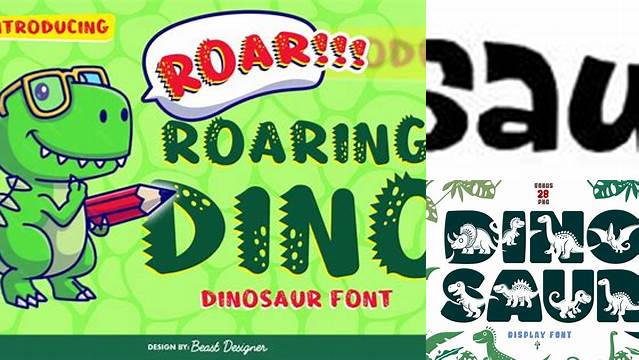
Dinosaur Cake Font: Free Download For Roaring Designs
Hey there, design enthusiasts! Are you looking to add some prehistoric pizzazz to your cake designs? Or perhaps you're working on a dinosaur-themed birthday party invitation? Well, you've come to the right place! We're diving deep into the world of dinosaur cake fonts, offering you a treasure trove of free downloads to make your creations roar! Whether you're a professional baker or a DIY enthusiast, having the right font can make all the difference.
Dinosaur Cake Fonts: An Introduction
Before we get started, let’s understand what dinosaur cake fonts are all about. These fonts are designed to evoke the spirit of the Jurassic era, often featuring rugged, textured, or playful designs that complement dinosaur-themed projects. They're perfect for cakes, posters, banners, and anything else that needs a touch of prehistoric charm. So, buckle up, and let’s explore the best options available for dinosaur cake font free download!
1. Free Dinosaur Fonts for Cake Decorations
When it comes to cake decorations, the font you choose can either make or break the design. Using a dinosaur cake font free download that complements the overall theme is crucial. Look for fonts with a playful, slightly rough texture to give your cake a realistic, Jurassic feel. Imagine a birthday cake with the name "Ethan" written in a bold, textured dinosaur font – it’s sure to be a hit!
Paragraph Optimization: For the best results, consider using a font that's easy to read from a distance. This ensures that the message is clear and captivating. Remember, the goal is to create a visually appealing and memorable cake. So, choose wisely!
2. Best Dinosaur Fonts for Birthday Cakes
Birthday cakes, especially for kids, are all about fun and excitement. When selecting a dinosaur cake font free download for a birthday cake, go for something that’s both playful and legible. Fonts with rounded edges or cartoonish elements can add a touch of whimsy, making the cake even more appealing. Think about using bright colors to further enhance the visual impact.
Paragraph Optimization: A great tip is to preview the font with the birthday celebrant's name before finalizing your design. This way, you can ensure that the font looks good with the specific letters and length of the name. Plus, it adds a personal touch!
3. Dinosaur-Themed Fonts: Free Options
Finding the right dinosaur-themed font free download can be a daunting task, but there are plenty of fantastic options available online. Websites like Dafont, FontSpace, and Google Fonts offer a wide variety of fonts that fit the dinosaur theme. Look for fonts with names like "Jurassic Park," "Dino," or "Prehistoric" to get started. These fonts often come with unique characteristics that perfectly capture the essence of the dinosaur era.
5. Typography Ideas for Dinosaur Cakes
Let’s talk typography ideas! Choosing the right font is only half the battle; how you use it is equally important. Consider these tips:
- Color: Use colors that complement the dinosaur theme, such as greens, browns, and earthy tones.
- Size: Adjust the font size to fit the cake perfectly. Too small, and it might be hard to read; too large, and it could overwhelm the design.
- Placement: Think about where the text will be placed on the cake. Centering it can create a balanced look, while placing it off to the side can add a touch of whimsy.
Paragraph Optimization: Experiment with different font combinations to create a unique and eye-catching design. Pairing a bold dinosaur font with a simple, elegant font can create a stunning contrast.
6. Making Dinosaur Cake Toppers with Custom Fonts
Creating cake toppers with custom fonts is a fantastic way to personalize your dinosaur cake. Use your dinosaur cake font free download to print out letters or words on edible paper or fondant. You can then cut these out and attach them to skewers or toothpicks to create unique cake toppers. Imagine a cake topper that spells out "Roar-some Birthday" in a cool dinosaur font!